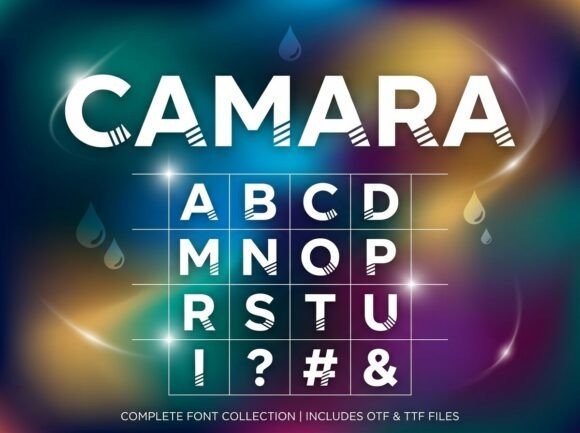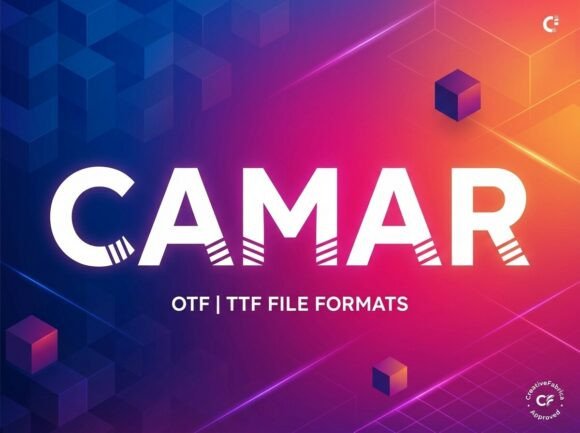
Introducing Camar Font: The Ultimate Decorative Display Font for Creators
Are you tired of using the same old fonts for your designs? Look no further than Camar Font, a stunning decorative display font that’s sure to turn heads. With its unique artistic elements and strong visual personality, this font is perfect for creators who want to break away from the ordinary and make a statement.
Camar Font is designed to be the center of attention, making it ideal for bold headlines, artistic logos, and creative packaging. Its versatility ensures that it can be used across various design projects, from branding and advertising to packaging and editorial design. Whether you’re a graphic designer, crafty DIY enthusiast, or online business owner, this font is sure to elevate your designs to the next level.
Important Note: All-Caps Display Typeface
Before making a purchase, it’s essential to note that Camar Font is an ALL-CAPS (Uppercase Only) display typeface. This means that it does not include lowercase letters, making it specifically designed for high-impact headlines, logos, and decorative initials where every letter is a work of art.
Camar Font is a dream come true for designers and crafters who want to add a touch of elegance and sophistication to their work. With its unique and artistic elements, this font is perfect for:
- Graphic Design: Use Camar Font to create stunning logos, brochures, and business cards that demand attention.
- Crafting and DIY: Add a professional touch to your handmade products, such as customized jewelry, candles, or soap labels.
- Branding and Advertising: Make a statement with bold and eye-catching headlines that showcase your brand’s personality.
- Packaging Design: Elevate your product packaging with beautiful and creative typography that sets your brand apart.
Why Choose Camar Font?
With so many fonts available, why choose Camar Font? Here are just a few reasons why this font stands out from the rest:
- Unique and Artistic: Camar Font features unique artistic elements that will set your designs apart from the crowd.
- Professional and Polished: Despite its bold and decorative nature, Camar Font maintains a professional and polished finish that’s perfect for high-end designs.
- Versatile: Use Camar Font across various design projects, from digital designs to print materials.